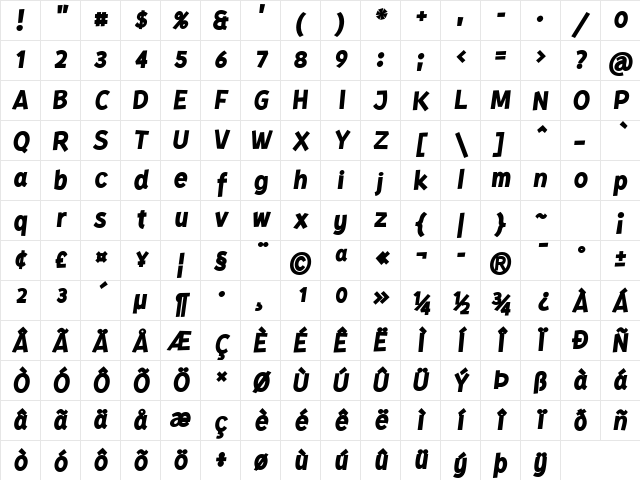
Complete Kurri Island Italic Bold glyph index. Displaying only characters natively supported by Kurri Island Italic Bold font.
Kurri Island Italic is a composed and adaptable typeface that performs quietly and consistently across a wide range of design contexts. The slanted form adds forward momentum and visual energy. Its bold stroke weight gives it real presence on the page.